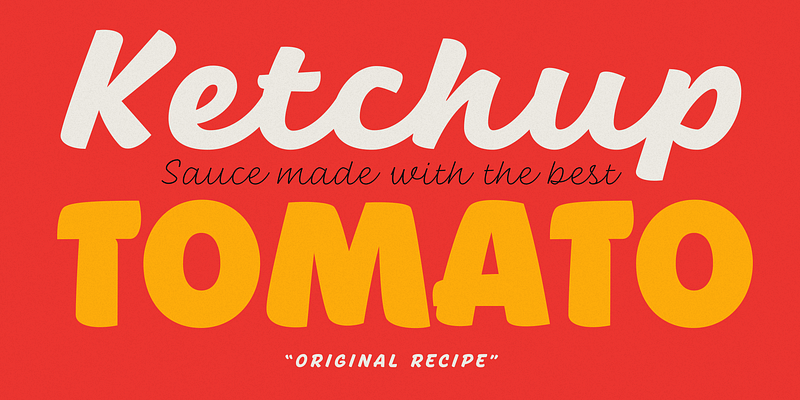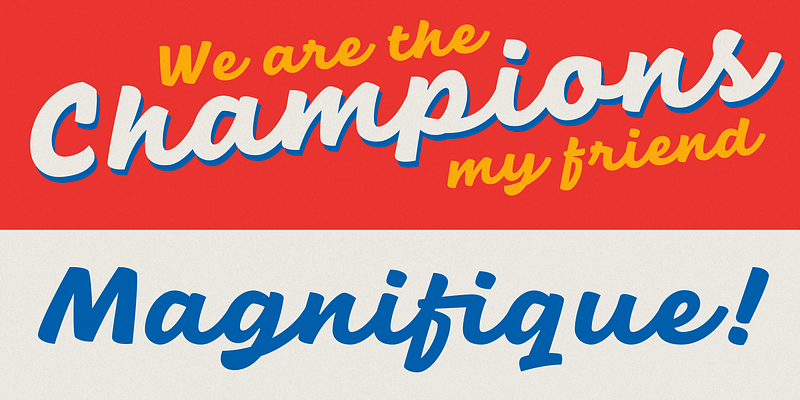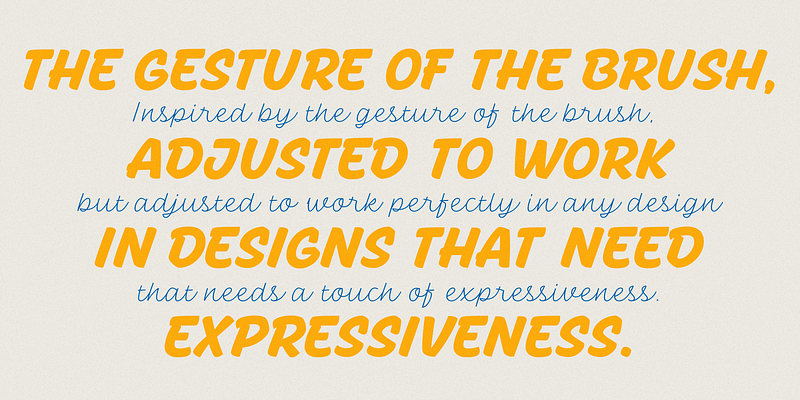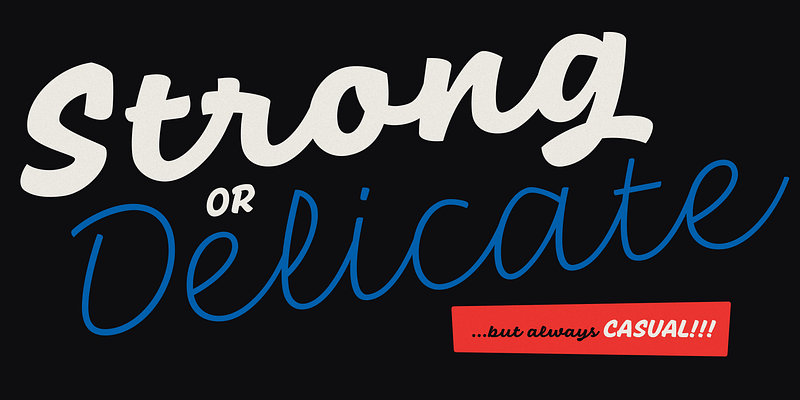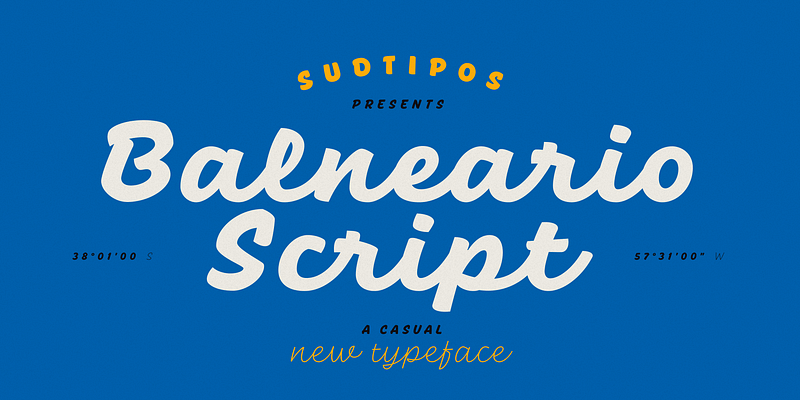
Balneario Script is a small tribute to a coastal port and tourist city, inspired by sign painters and brush gestures.
Friendly, rhythmic, and with a firm stroke, it’s ideal for headlines and short texts that need to be gestural but simple and highly functional. This typeface was designed to be used in promotional posters or for relaxed and fun packaging.
This font family goes beyond constructive or functional aspects. It seeks to capture the smell of the sea, the warm summer breeze and the nostalgic feeling of a city that from its daily life, knew how to forge a unique personality.